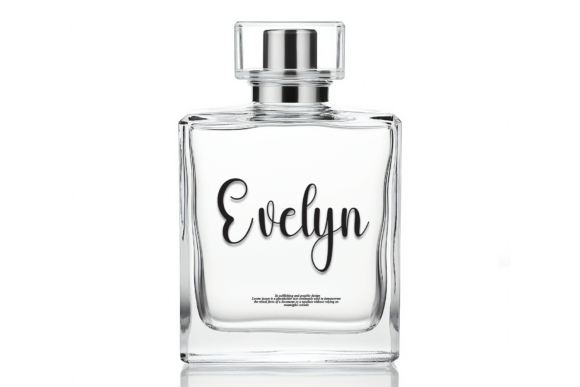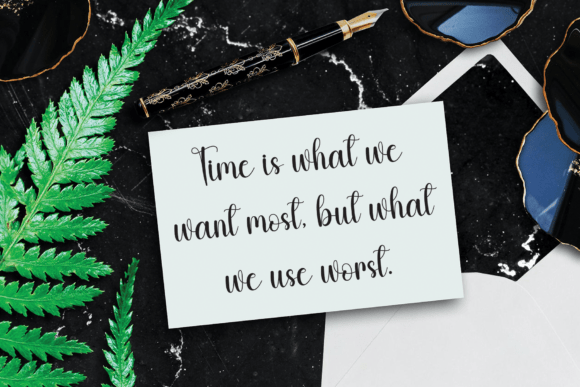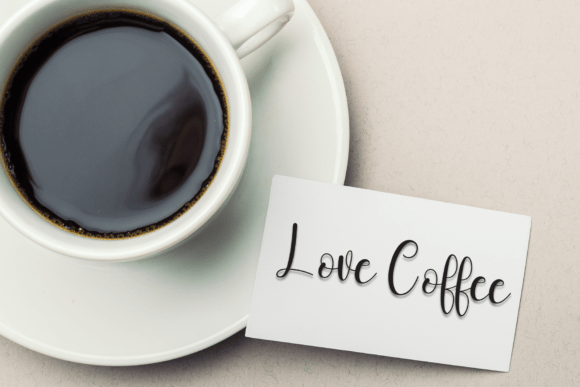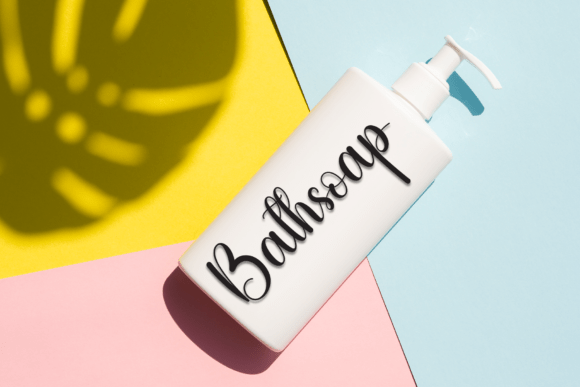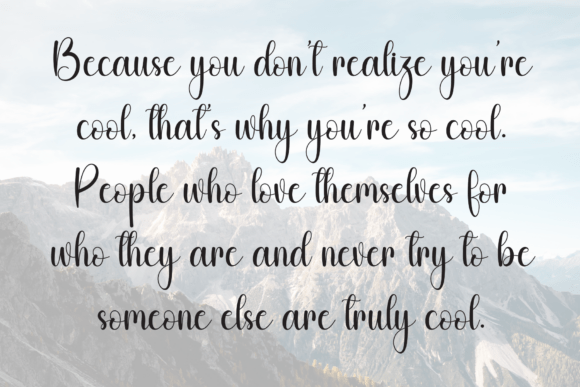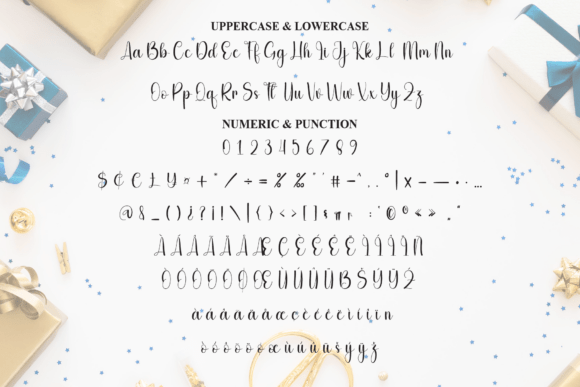
The Perfect Blend of Art and Design: Anniversary Font
As designers, we’ve all been there – staring at a blank page, trying to bring a vision to life. The moment of creativity strikes, and suddenly, the perfect font pops into your mind. For me, that moment came when I stumbled upon the Anniversary Font. Its elegant script style and fluid brush strokes seemed to whisper, ‘Use me, and make something beautiful.’ And that’s exactly what this font is all about – adding a touch of artistic flair to your designs.
Anniversary Font is more than just a stylish script font; it’s a versatile tool for designers. Ideal for logos, invitations, packaging, and social media graphics, it adds a creative and sophisticated touch to any design. Whether you’re a seasoned pro or a newcomer to the world of design, this font delivers both visual impact and flexibility, making it a valuable addition to any designer’s toolkit.
- Font Family: Anniversary Font is a unique, custom-designed font family with a distinctive aesthetic.
- Unique Characteristics: Anniversary Font features intricate, hand-drawn elements and ornate flourishes, making it ideal for special occasions and formal events.
Designer Review: Anniversary Font
First off, I want to say that I’m a big fan of the Anniversary Font’s overall aesthetic ✨. The classic, elegant feel it brings to any design is hard to match, and it’s perfect for creating a sophisticated and timeless look. The font’s sleek lines and refined details make it a great choice for high-end branding, luxury packaging, and even wedding invitations.
The font’s legibility is also top-notch ✨. The letterforms are well-balanced, and the x-height is just right, making it easy to read even in smaller sizes. The font’s scalability is another strength, as it retains its charm and clarity whether used at 10pt or 100pt.
Now, let’s talk about some limitations ⚠️. The Anniversary Font is a more formal, traditional font, which can make it feel a bit restrictive for more playful or casual designs. Additionally, the font’s limited language support may be a concern for global brands or organizations.
- Classic, elegant aesthetic
- High-end branding and luxury packaging
- Excellent legibility
- Scalable and retains charm at various sizes
- Limited language support
- More formal, traditional feel
Overall, the Anniversary Font is a solid choice for designers who need a sophisticated and timeless font for their projects. While it may have some limitations, its strengths far outweigh its weaknesses, making it a valuable addition to any designer’s toolkit.
Use the Anniversary Font to create a romantic and elegant design for your anniversary celebration. Pair it with a soft color palette and delicate graphics for a beautiful effect.
The Anniversary Font is ideal for:
- Anniversary cards and invitations
- Wedding invitations and decorations
- Love-themed posters and prints